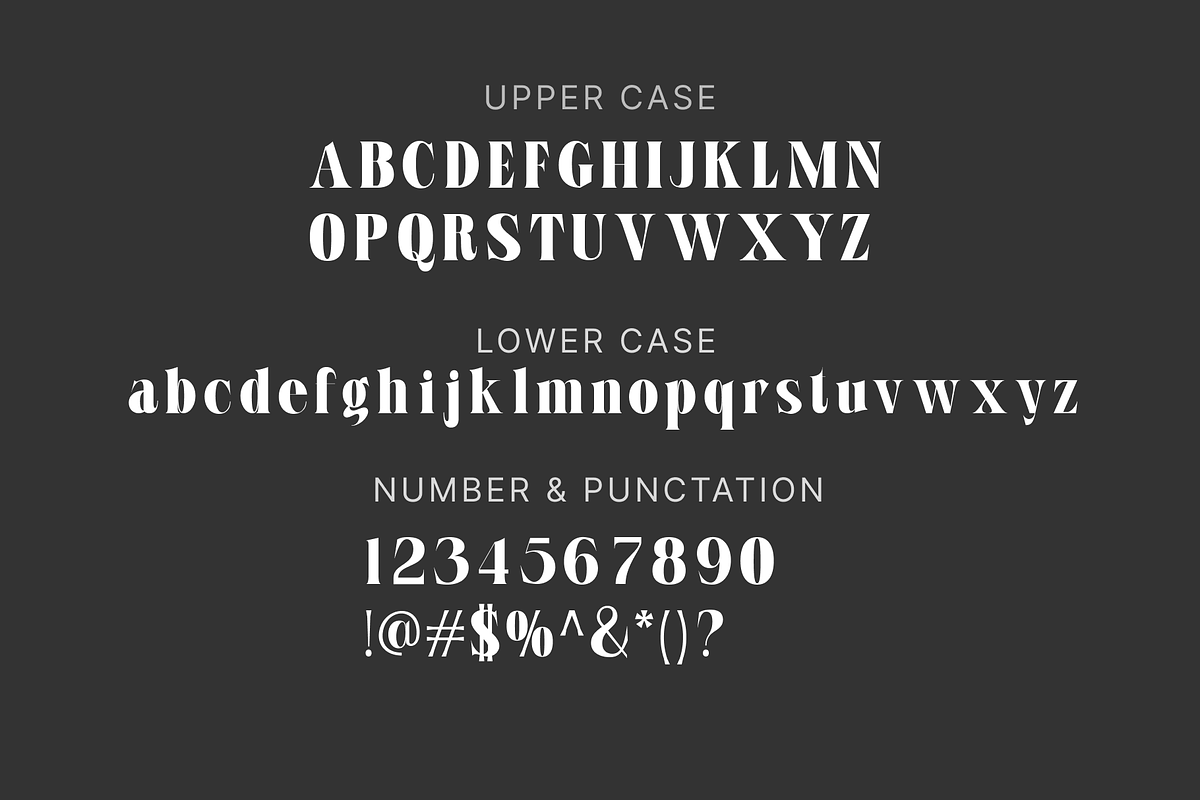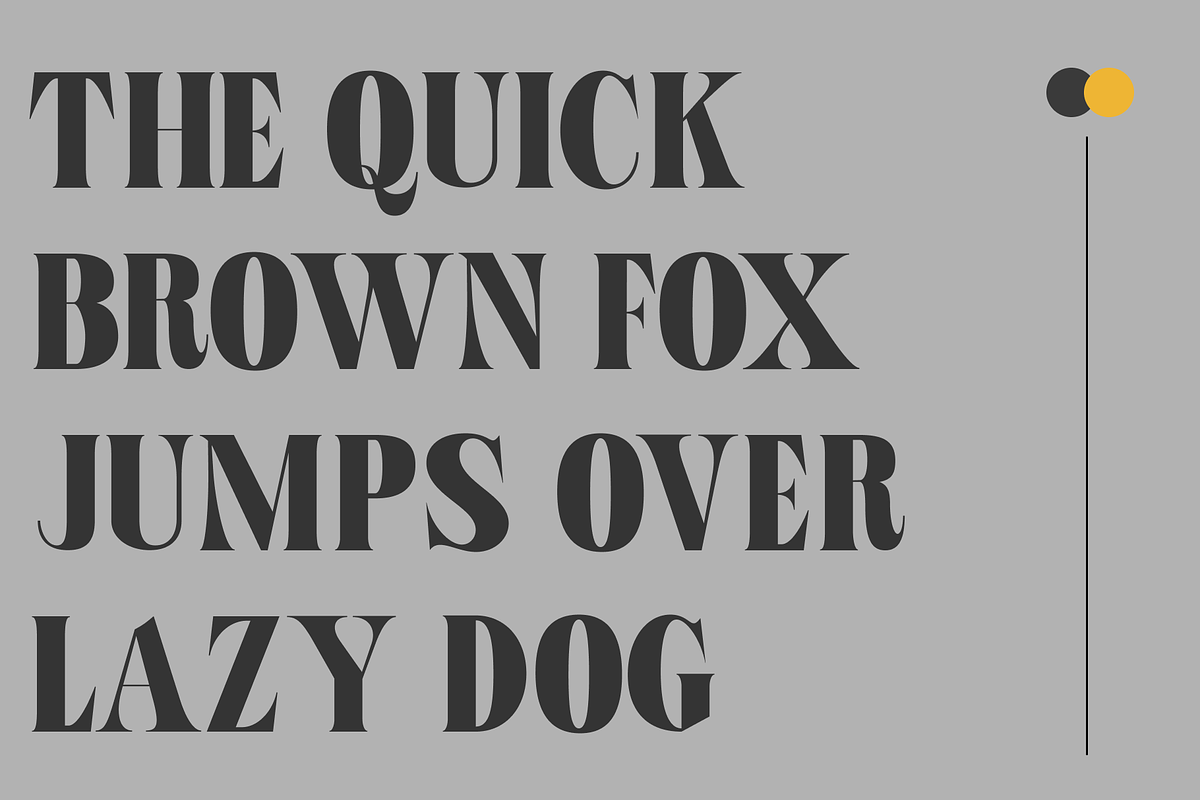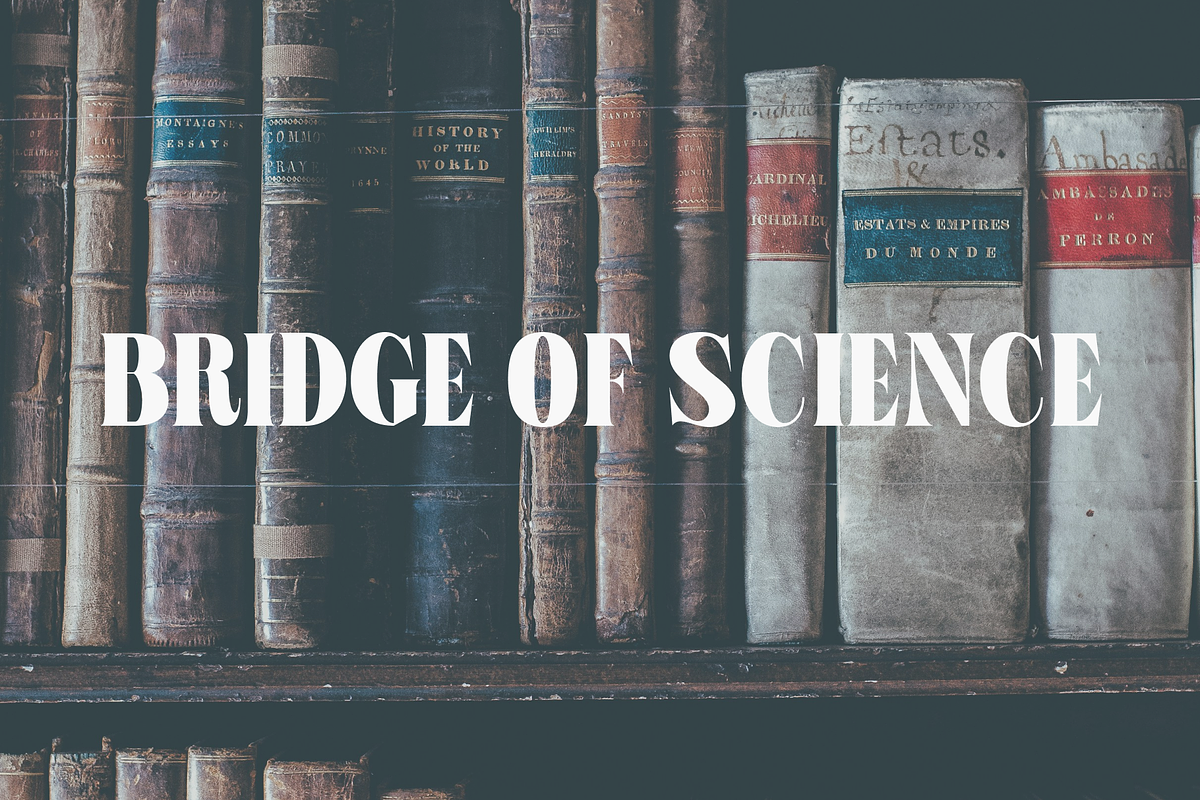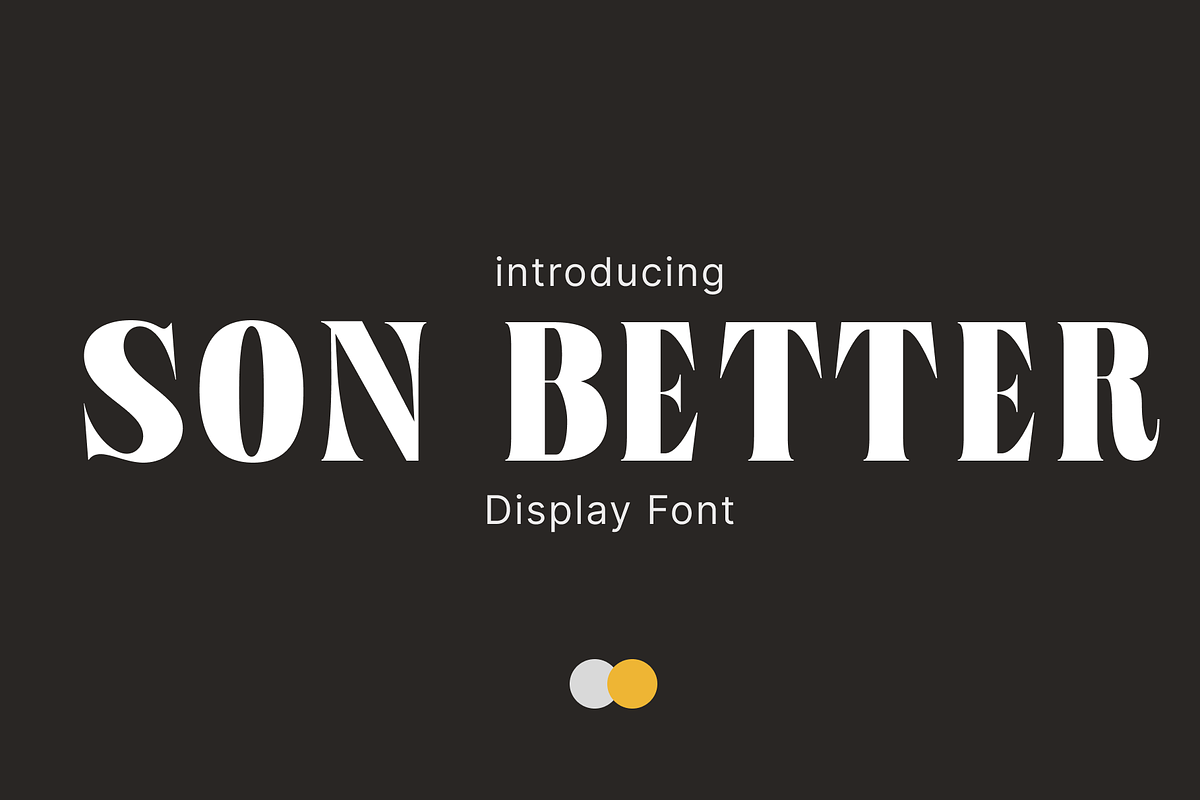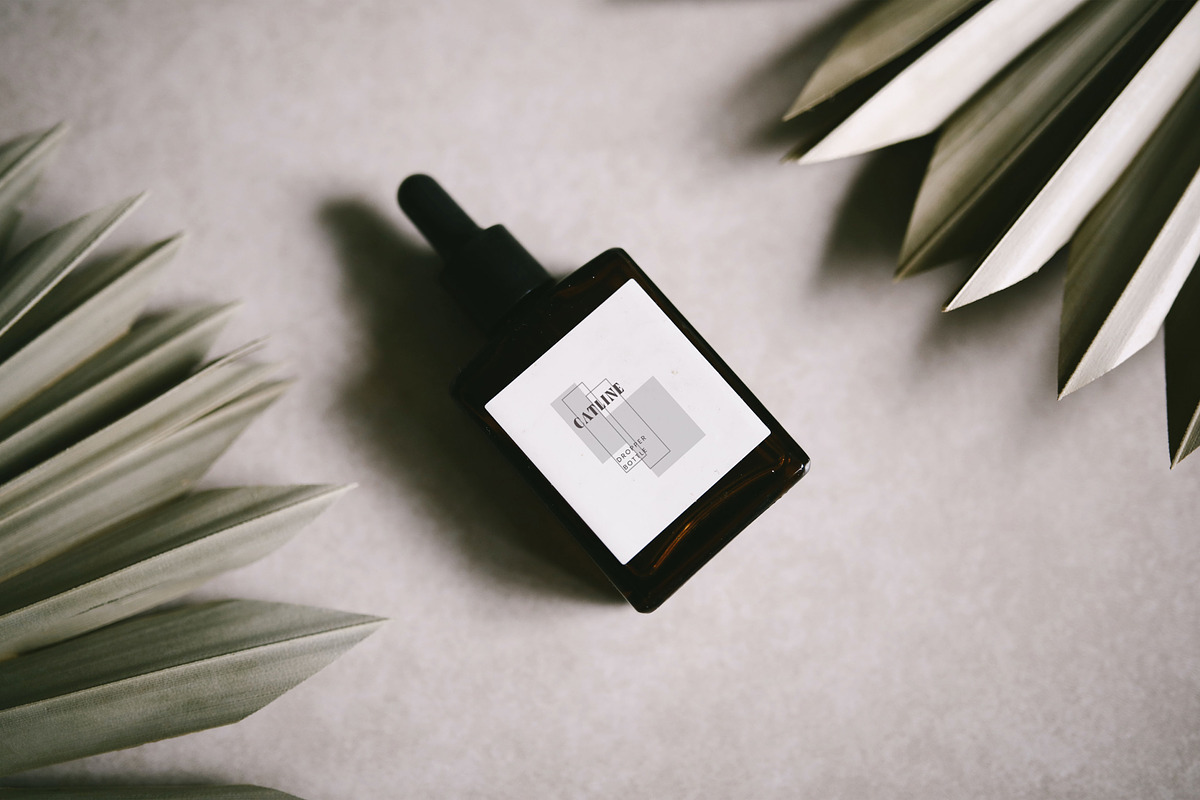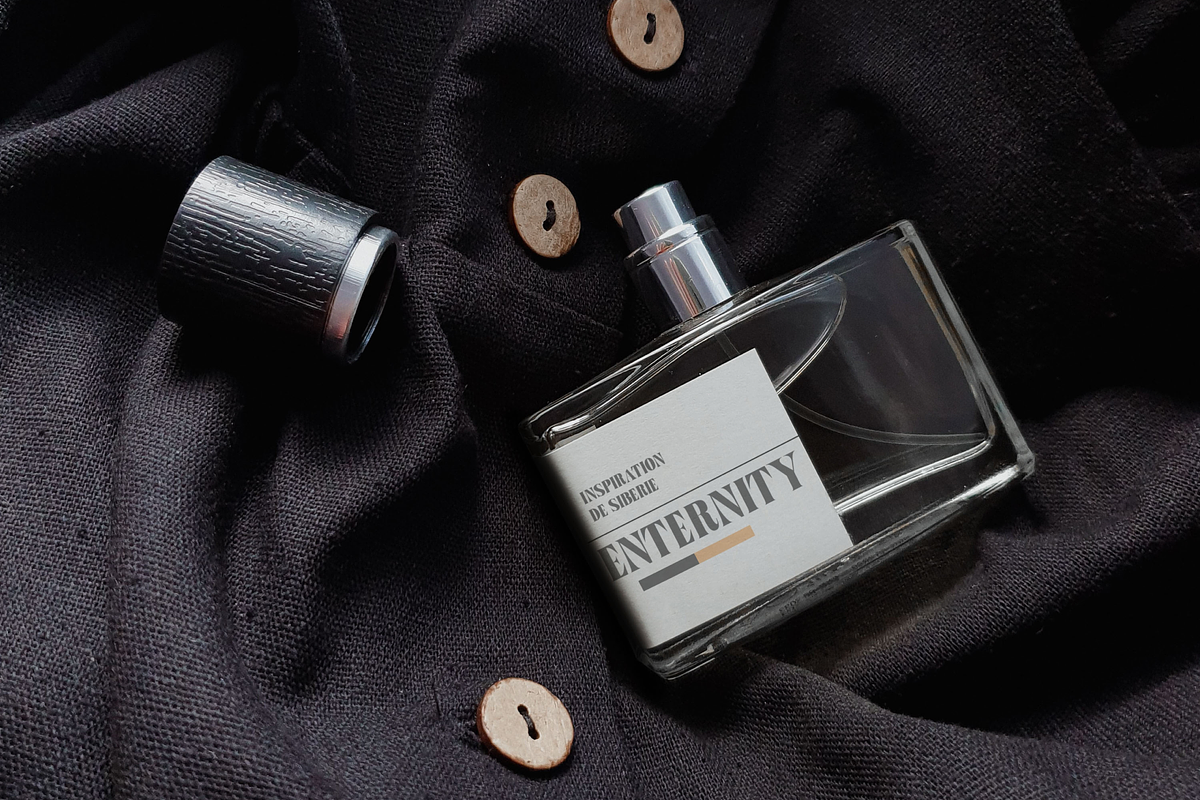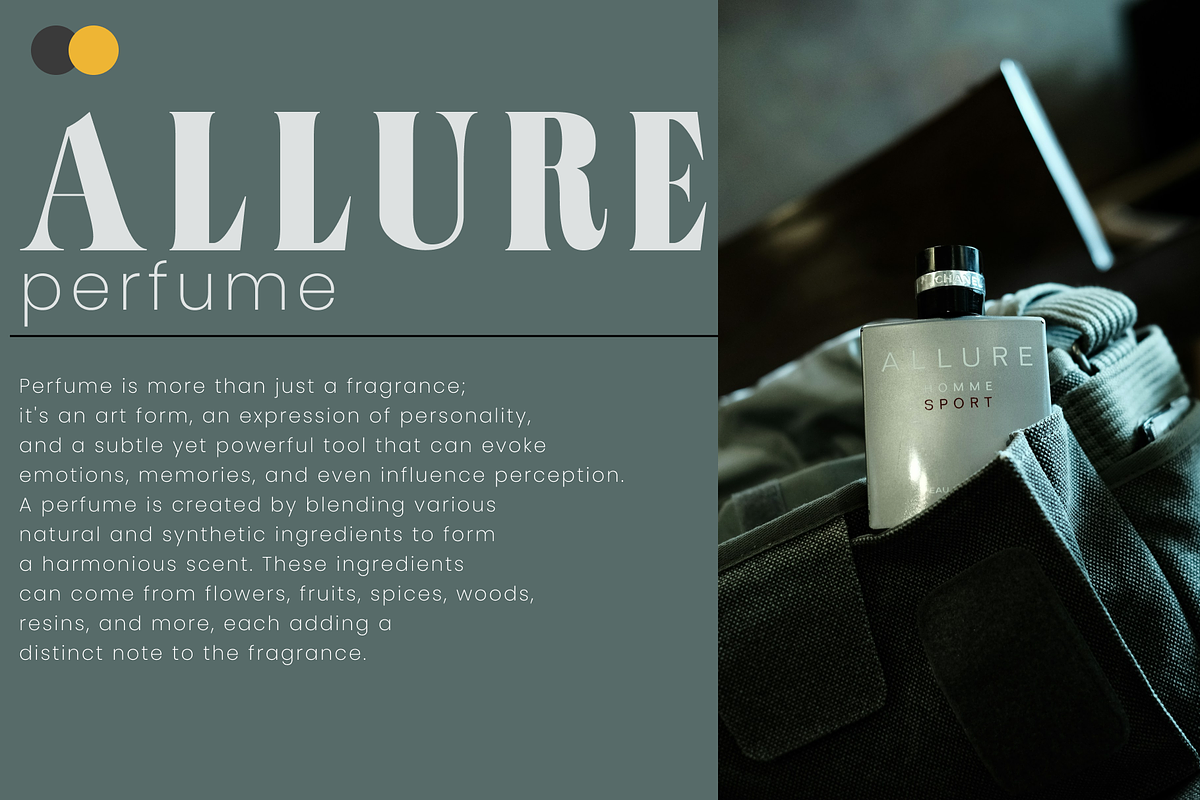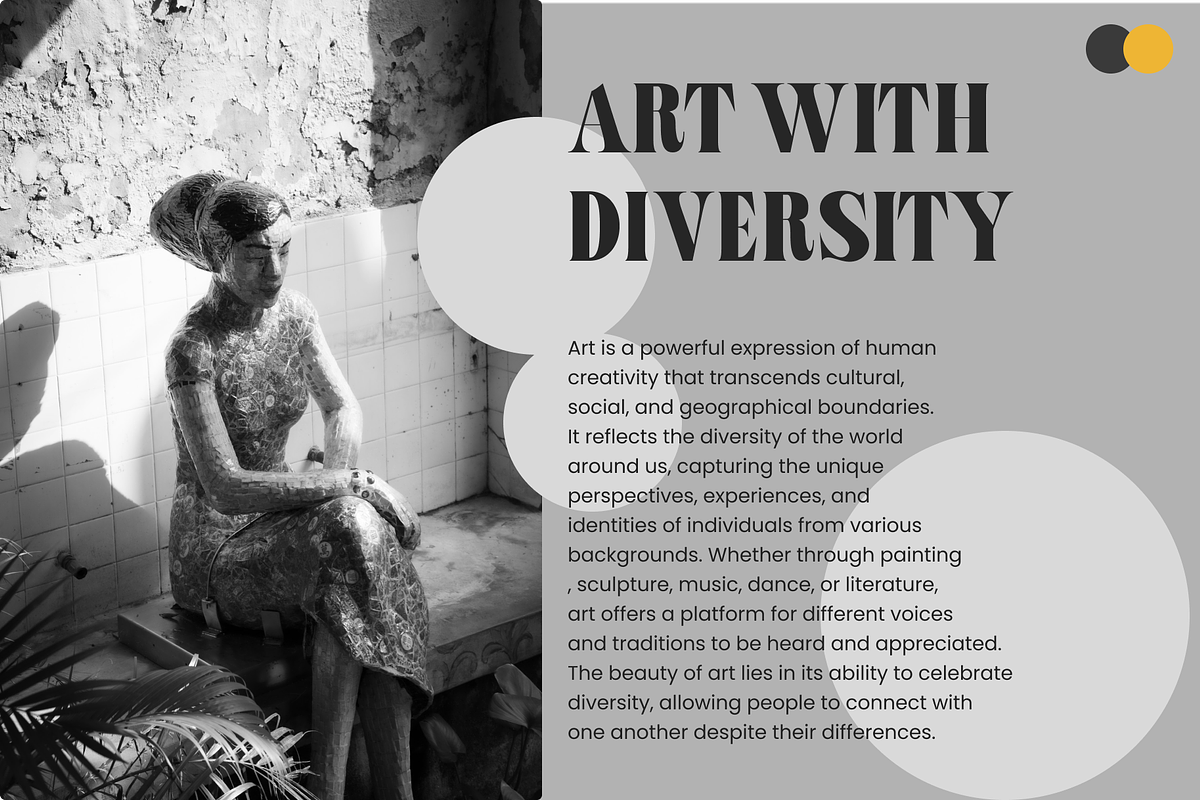
SON BETTER
SON BETTER showcases a blend of traditional serif features with modern, bold characteristics. The strokes are bold and dramatic, especially in the terminal sections, which enhance the visual impact of the font and have extreme inktrap.